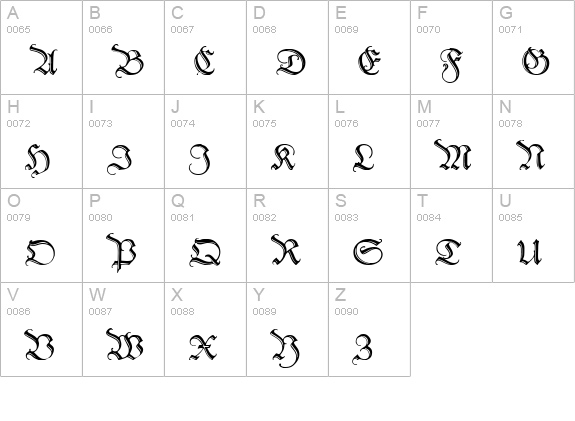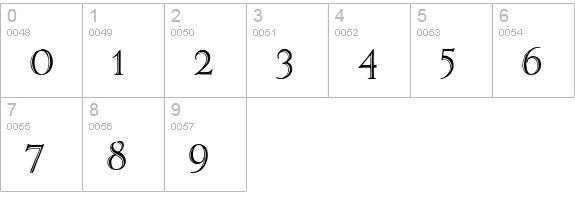
Peter Schlemihl Font Details
Introducing the extraordinary Peter Schlemihl font - a captivating typeface that seamlessly blends elegance, versatility, and a touch of whimsy. With its unique and enchanting design, this font is sure to add a touch of magic to any creative project. The Peter Schlemihl font exudes a timeless charm, taking inspiration from classic calligraphy while adding a modern twist. Its graceful curves and delicate strokes create a harmonious balance, making it ideal for a wide range of design projects. From wedding invitations to branding materials, this font will effortlessly elevate any piece of artwork. Not only does the Peter Schlemihl font embody beauty and sophistication, but it also offers incredible versatility. With multiple weights and styles, including regular, bold, italic, and more, this font provides endless opportunities for creativity. Whether you're designing a logo or crafting a magazine layout, this font will adapt to your vision, ensuring a seamless and cohesive aesthetic. But what makes the Peter Schlemihl font truly exceptional is its accessibility. We believe that creativity should be free, which is why this font is freely available to download at FontsMarket.com. Now, you can embark on your creative journey without any limitations or barriers. Embrace the possibilities and unlock your imagination with the Peter Schlemihl font. In conclusion, the Peter Schlemihl font is a captivating and versatile typeface that effortlessly combines elegance and whimsy. With its timeless design, extensive range of styles, and availability as a free download, this font is a must-have for any designer or creative enthusiast. Let your creativity soar and bring your visions to life with the enchanting Peter Schlemihl font.